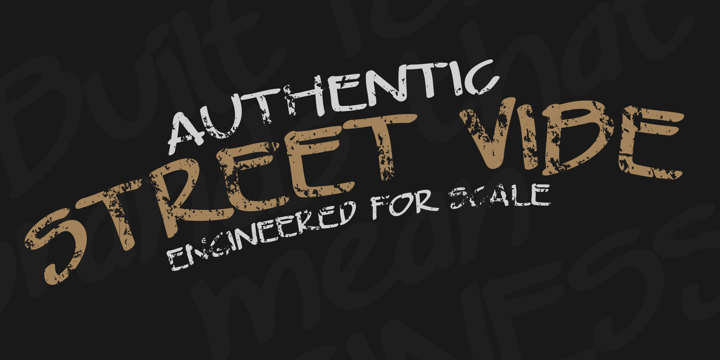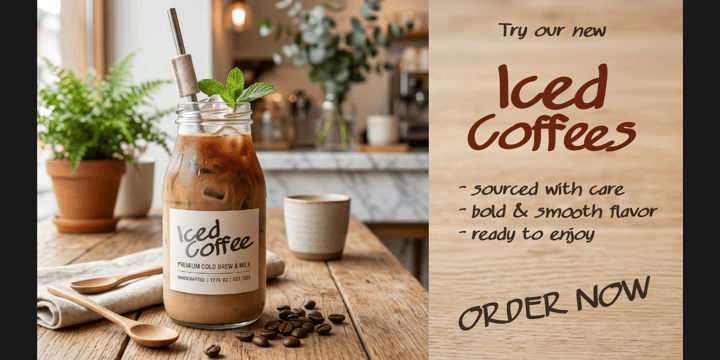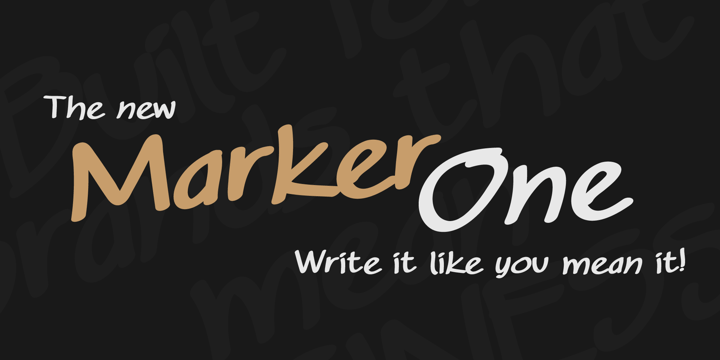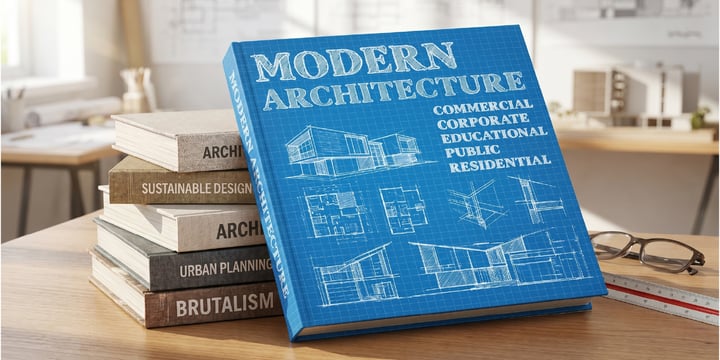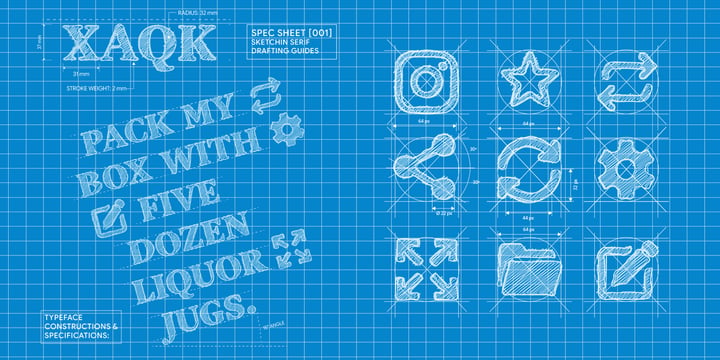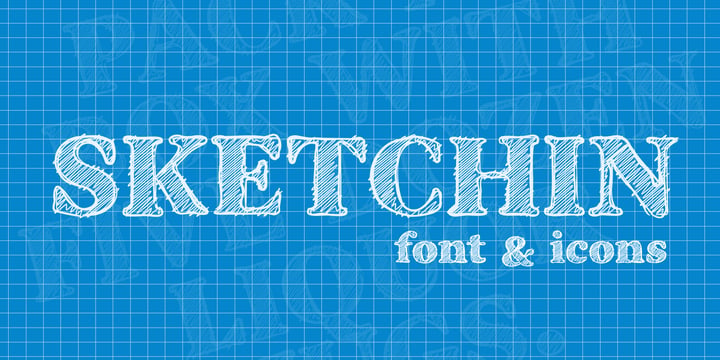
Kevin Renes
Kevin’s career in design spans over 30 years, covering everything from the fast-paced world of advertising to the detail-oriented realms of branding and editorial work. His technical foundation was built at the Grafisch Lyceum in Rotterdam, a world-renowned hub for Dutch design. While his training was formal and precise, Kevin’s heart has always been in the "perfectly imperfect" side of creativity.
For as long as he can remember, Kevin has been fascinated by handwriting. He’s the person who will stop to analyze the loops and slants of a friend's note or a stranger’s signature, looking for the personality hidden in the ink. This curiosity is what drives Design Vault Studio. He believes that in a world of sterile, pixel-perfect digital fonts, there is a massive need for type that feels like it was actually made by a human being.
Kevin’s process is a mix of old-school grit and modern flow. Most of his fonts start as sketches with pen and paper. But instead of just hitting "image trace" on a scan, he brings those sketches into his tablet and traces them by hand. This manual approach is how he ensures every character keeps its soul while meeting the high standards of a pro-grade font. For Kevin, it’s about capturing the energy of a quick sketch and making it work flawlessly in a digital layout.
After three decades in the industry, Kevin hasn't lost his "designer's eye." Whether he’s traveling or just grabbing a coffee, he’s constantly drawing inspiration from the spontaneous art of daily life and the unique ways people leave their mark on the world. He builds his fonts for designers who, like him, want their work to feel personal, authentic, and alive.